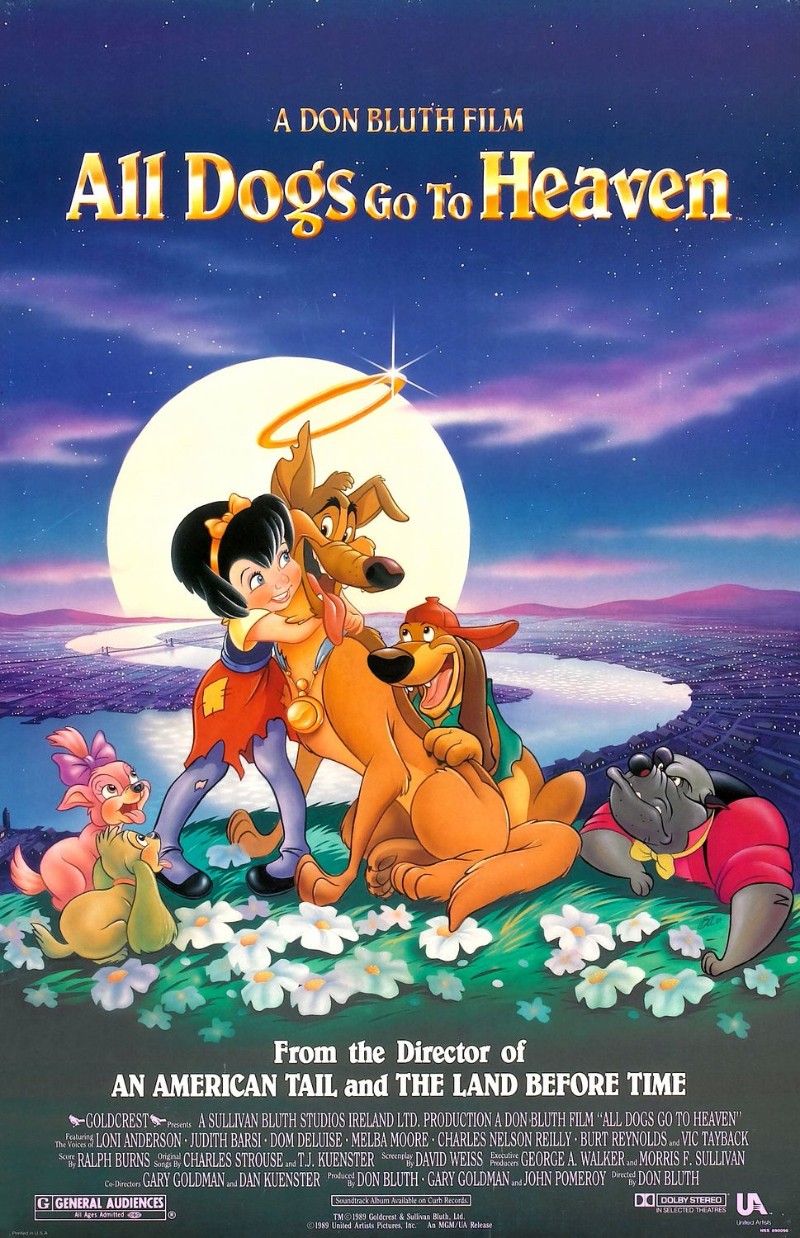
All Dogs Go to Heaven Font
AnimationAll Dogs Go to Heaven is a 1989 animated musical comedy film directed by Don Bluth. The story is about a dog named Charlie who dies and goes to heaven but returns to Earth to help his best friend and rescue other animals from an evil villain.
The film title on the poster uses a unique decorative slab serif font Belwe Condensed, designed by German typographer and teacher Georg Belwe in 1926.